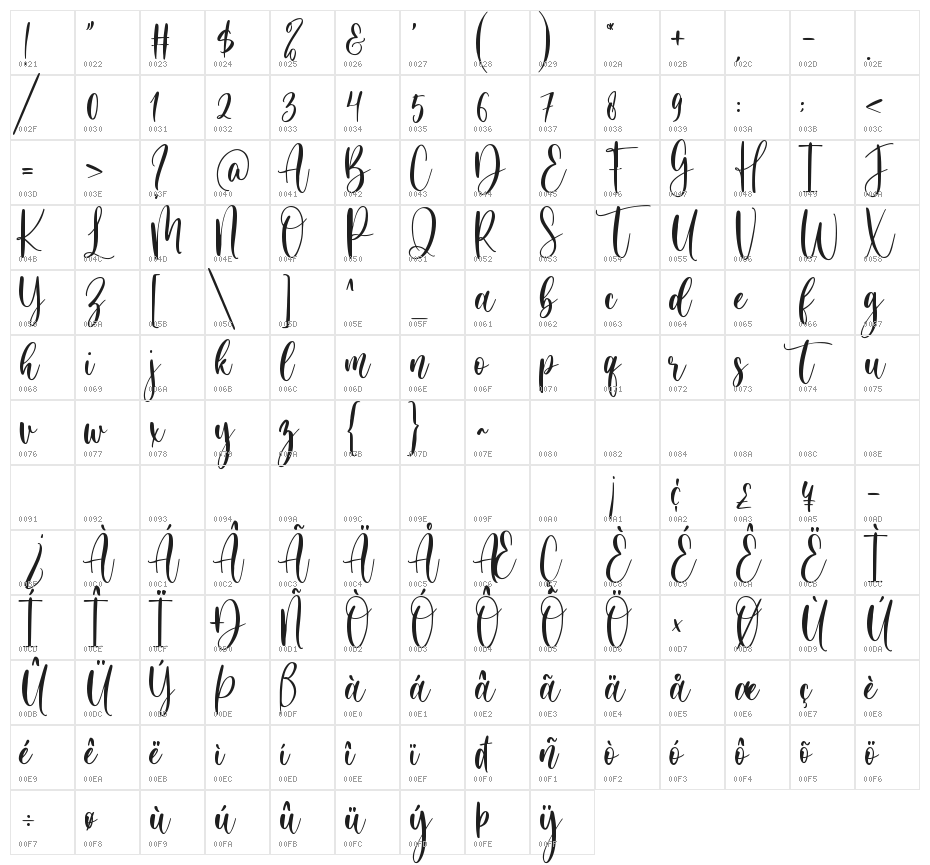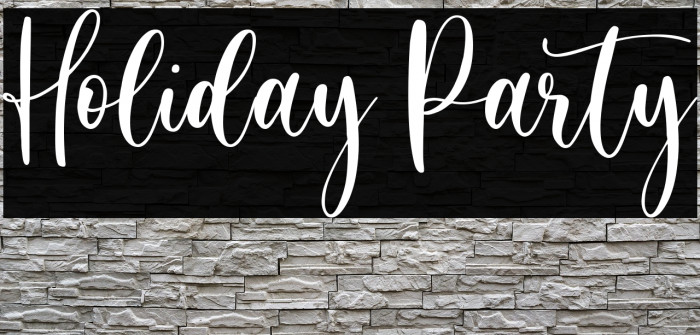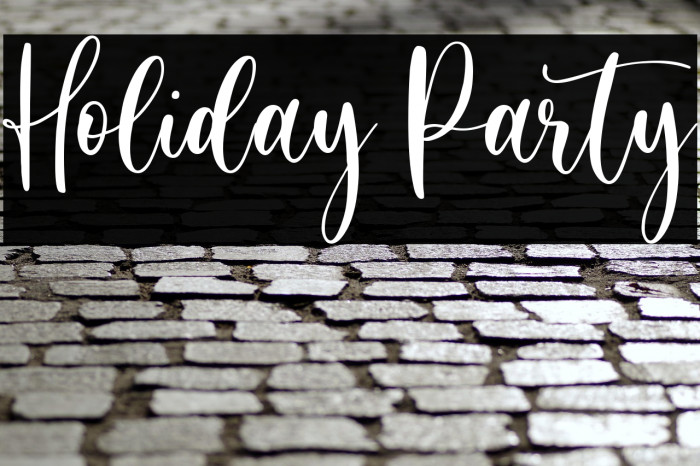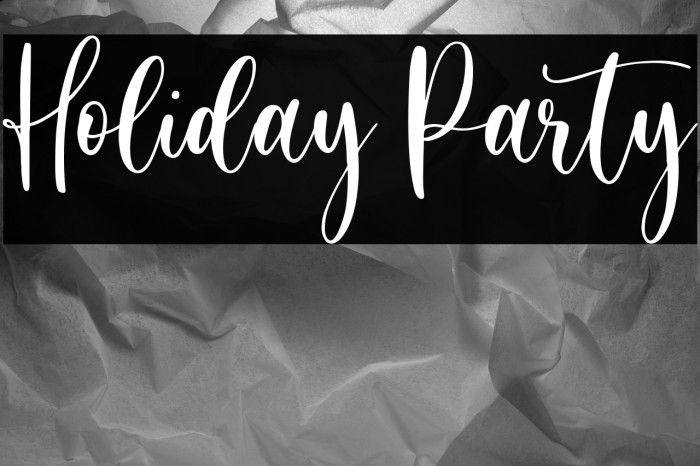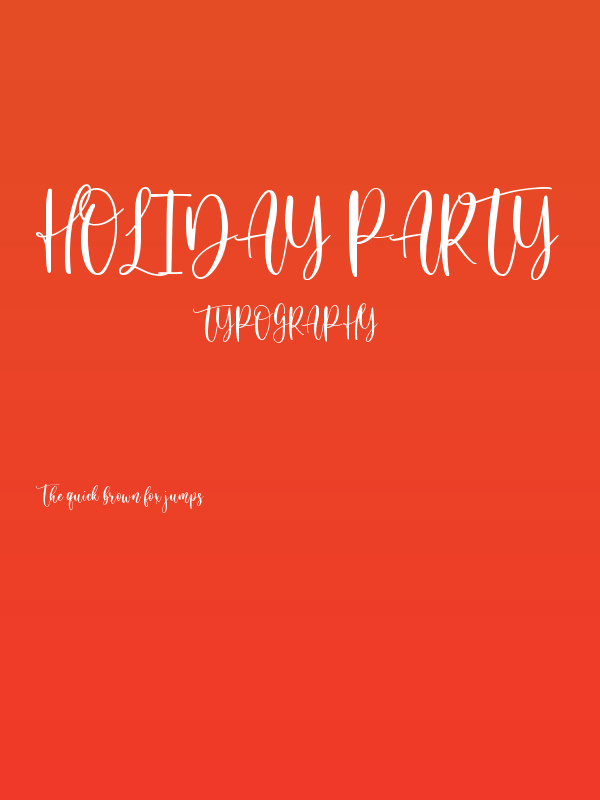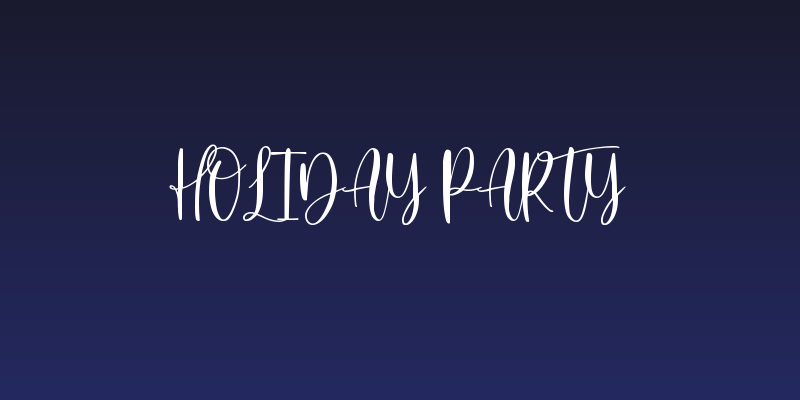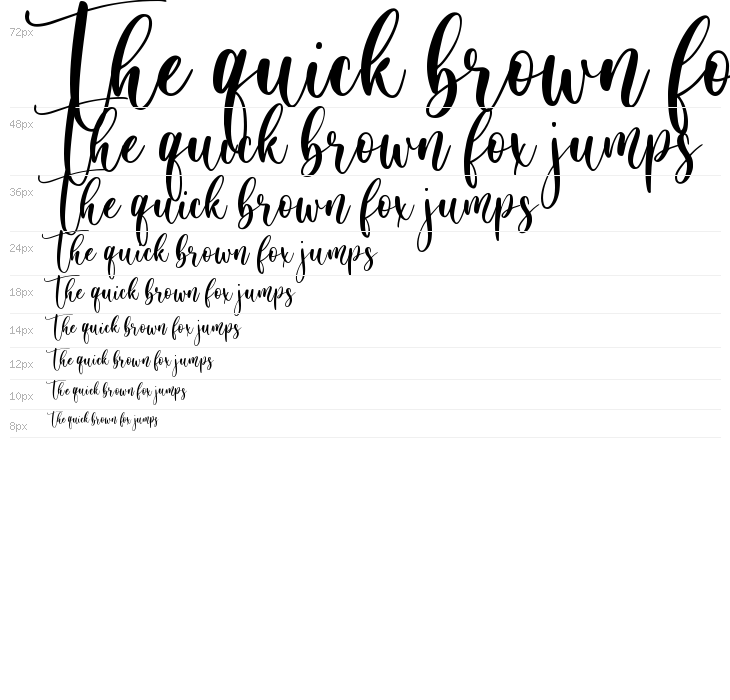
Holiday Party Font
Holiday Party Description
This font exudes a playful and festive vibe, characterized by its flowing, cursive style. The letters are elegantly connected, with a mix of thick and thin strokes that create a dynamic and lively appearance. The uppercase letters are tall and slender, while the lowercase letters are more rounded and compact, adding to the whimsical nature of the font. The numbers and special characters maintain the same energetic style, making it suitable for creative and celebratory designs. The overall look is both sophisticated and approachable, perfect for adding a touch of elegance to any project.
| Use Case | Headlines, Logos, Invitations |
| Proposed Projects | Ideal for holiday cards, party invitations, branding for festive events, and decorative signage. |